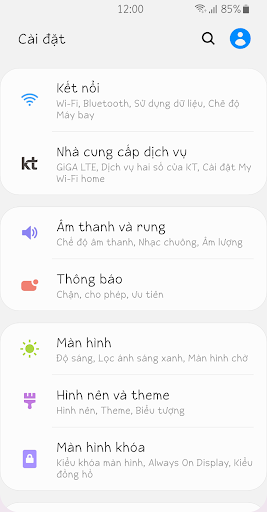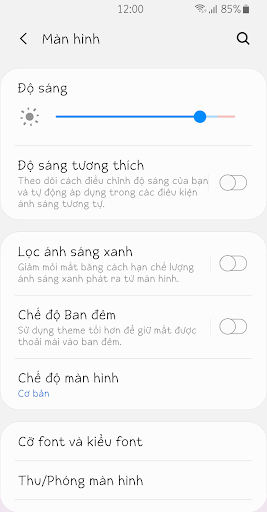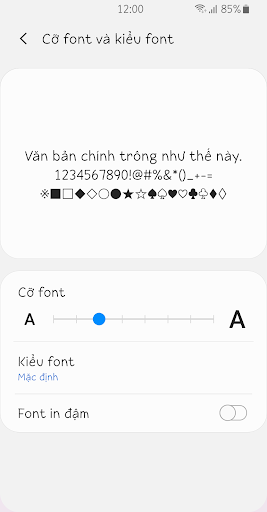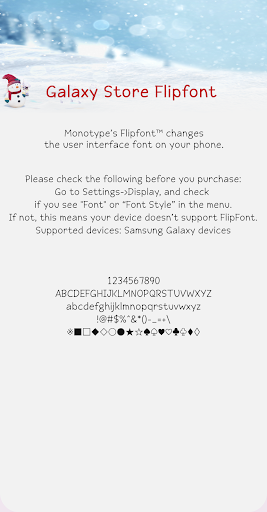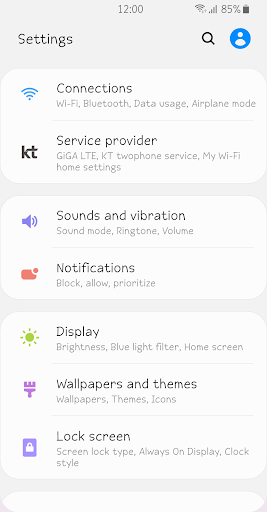
ZFSnowman
This font is characterized by a cute handwriting style with even thickness.
Comfortable written form and free structure make a pleasant impression on everyone.